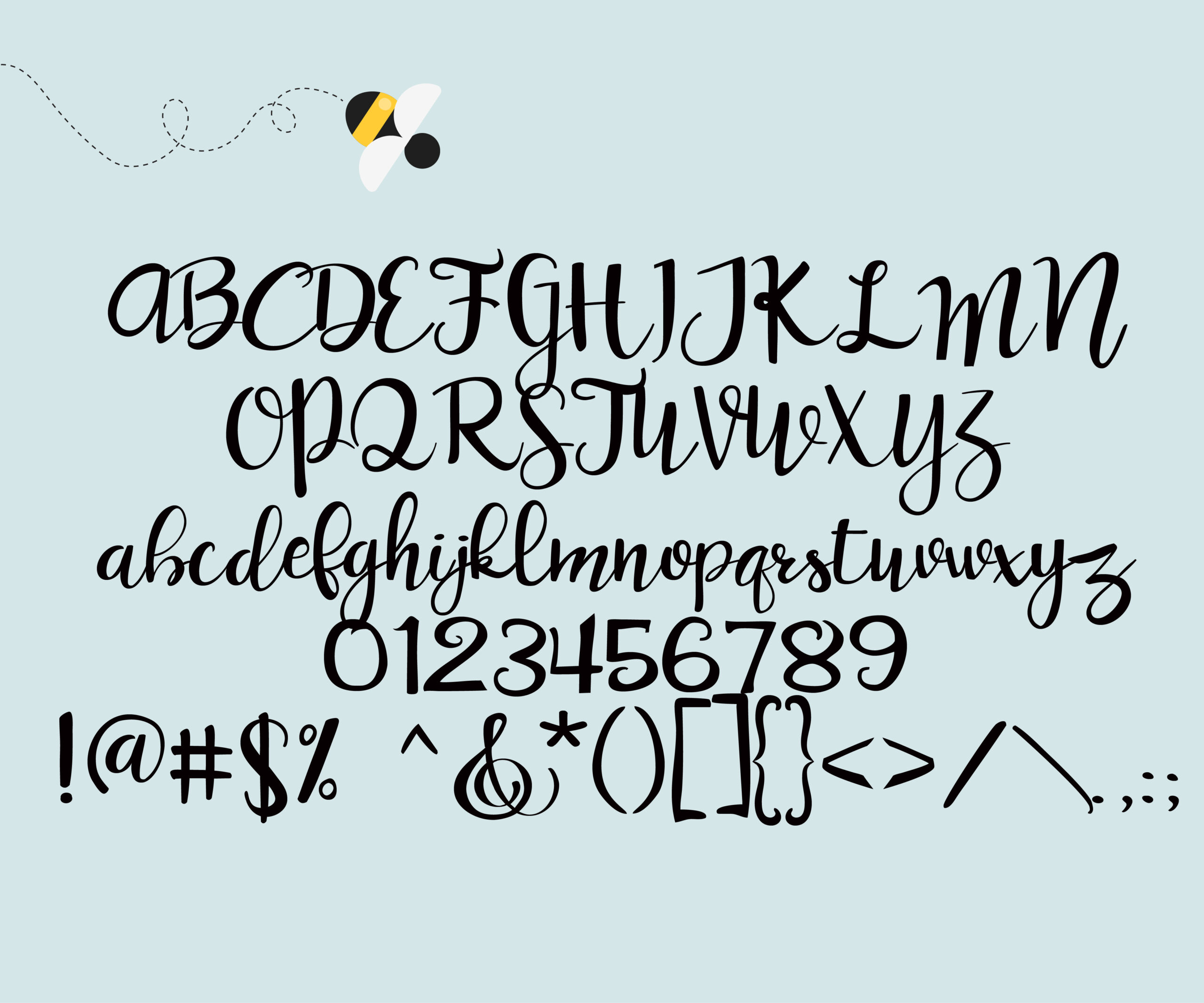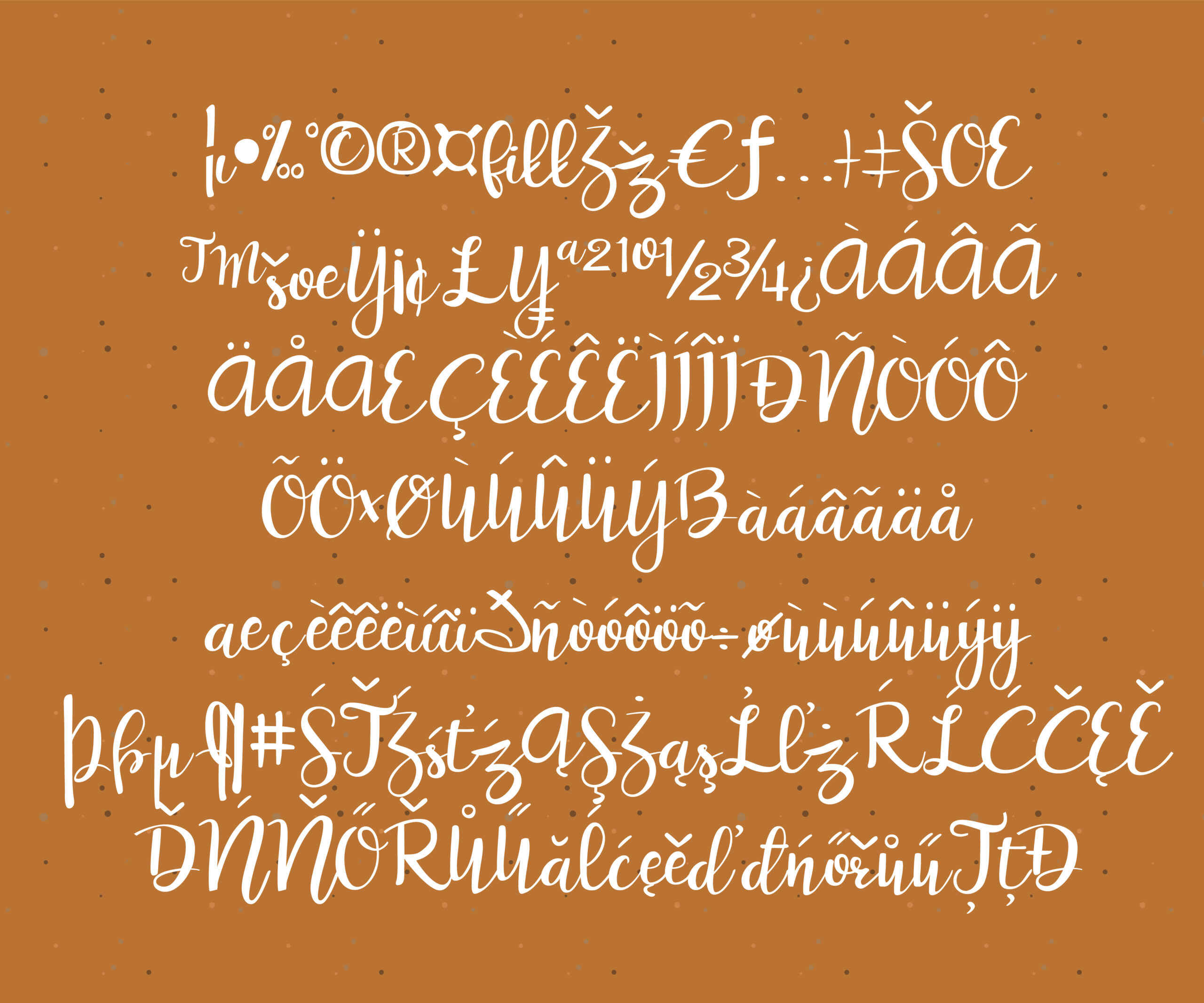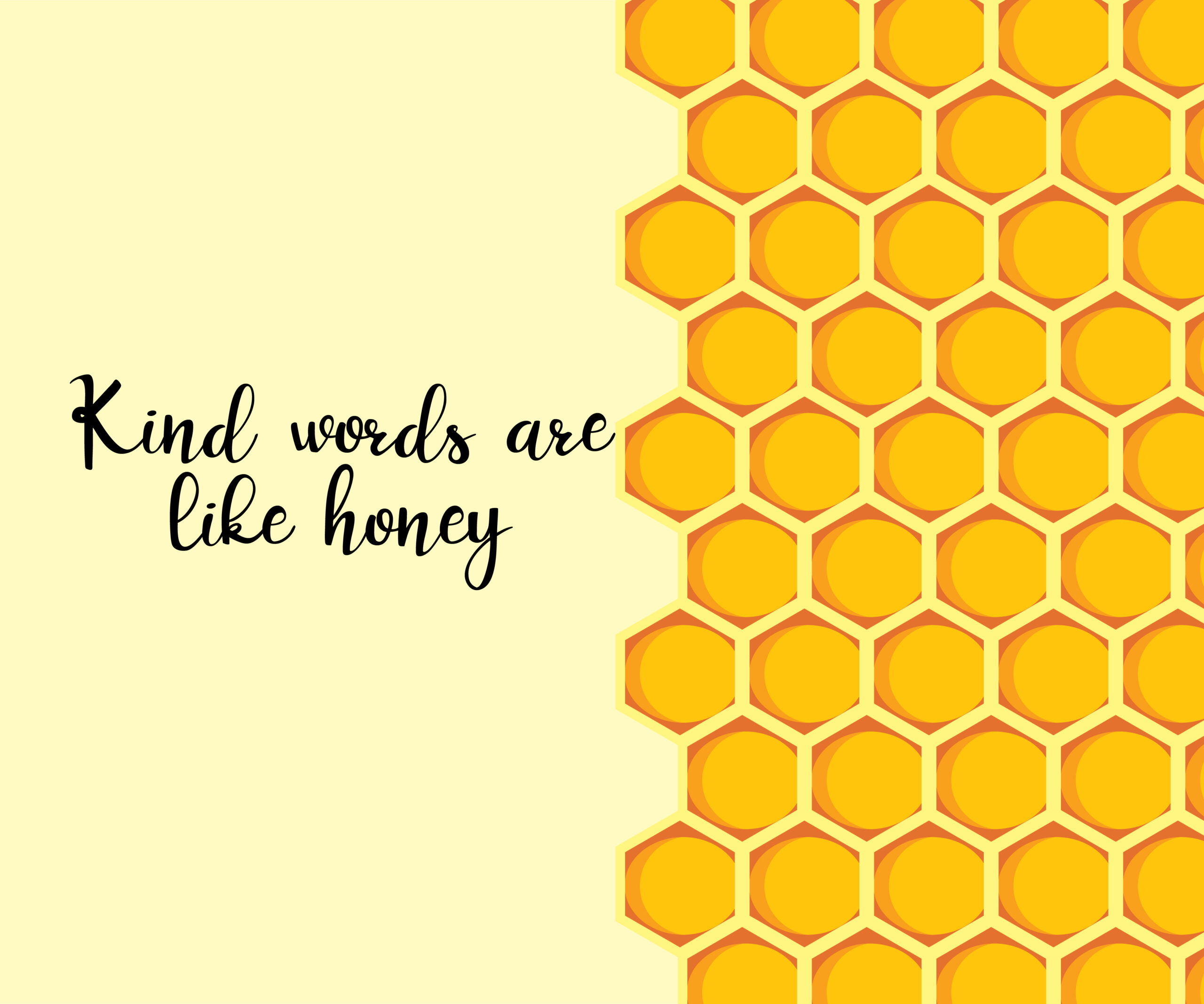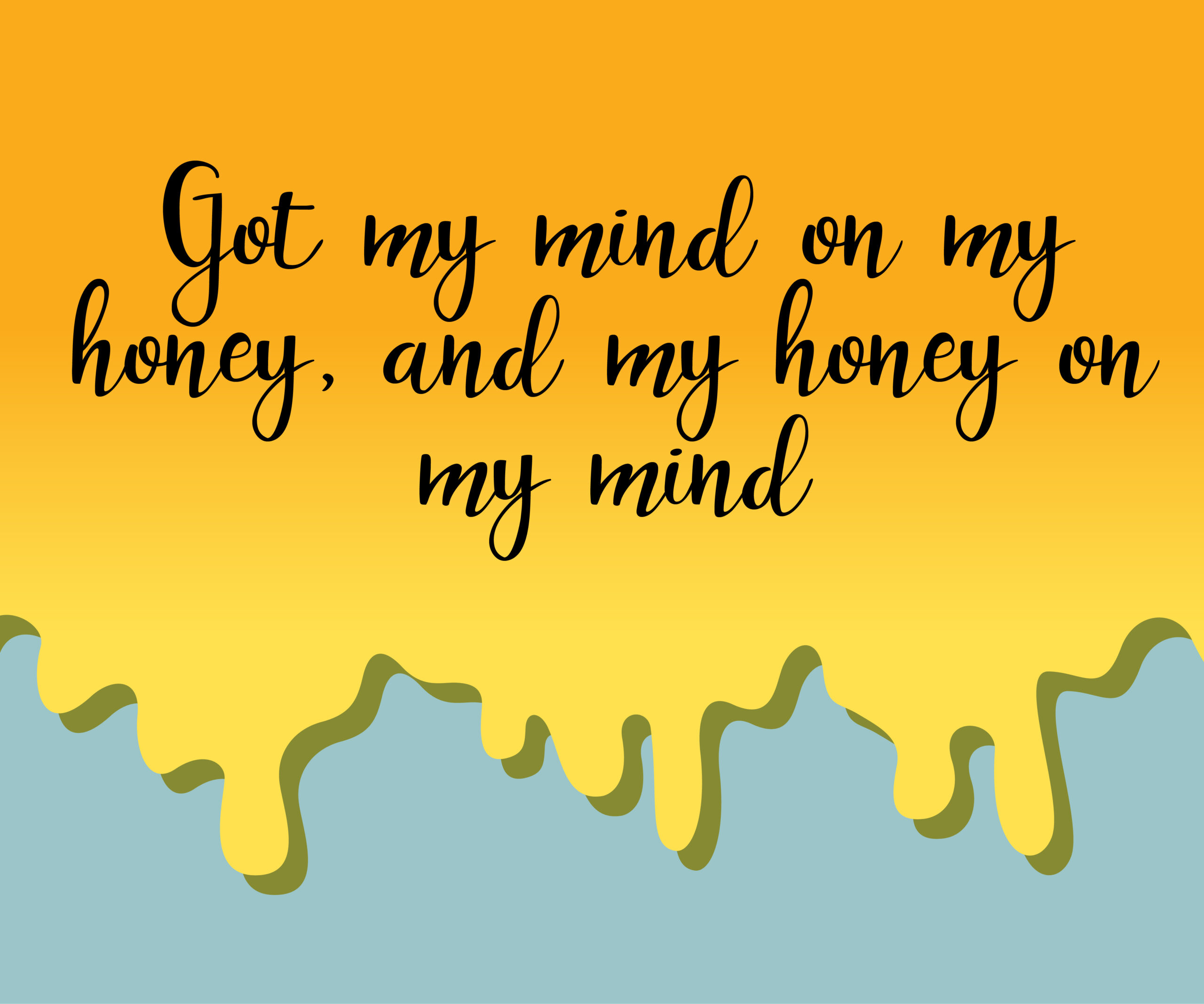
HomeScript FontsPeanut Butter and Honey Font Script Fonts Peanut Butter and Honey Font FacebookXPinterestWhatsApp Peanut Butter and Honey Font Poster 2 Peanut Butter and Honey Font Poster 3 Peanut Butter and Honey Font Poster 4 Peanut Butter and Honey Font Poster 5 About Peanut Butter and Honey Font Peanut Butter and Honey is a gorgeous script that has a bouncy baseline and whimsical feel. DOWNLOAD NOW People also explored Bellowingsky Font Dino Zack Font Chorustyle Duo Font Pretty Rose Font Blankco Medium Font Cabearo Font Lambrella Font Delicate Font Humanitty Font 274 0 TagsPeanut Butter and Honey Font Previous articleScamper FontNext articleButtermilk Font LEAVE A REPLY Cancel reply Comment: Please enter your comment! Name:* Please enter your name here Email:* You have entered an incorrect email address! Please enter your email address here Website: Save my name, email, and website in this browser for the next time I comment. Personal Use Free Oatmeal Personal Use Free Read more about this font Valentine Chips Personal Use Free Read more about this font Little Pigeon Personal Use Free Read more about this font The 10 Best Handwriting Fonts to Add Personality to Your Designs Blog Read more about this font BLOG Top 10 Handwritten Fonts That Elevate Your Designs Top 10 Handwritten Fonts That Will Elevate Your Designs Handwritten fonts bring a warm, personal touch to every creative project. Whether you're designing logos, invitations,... How to Cut Any Font on Cricut: Convert a Font to SVG (Free) How to Install and Use Fonts on Windows, macOS, and Web Projects Free Fonts Risk: Why Free Fonts Can Be Dangerous for Designers